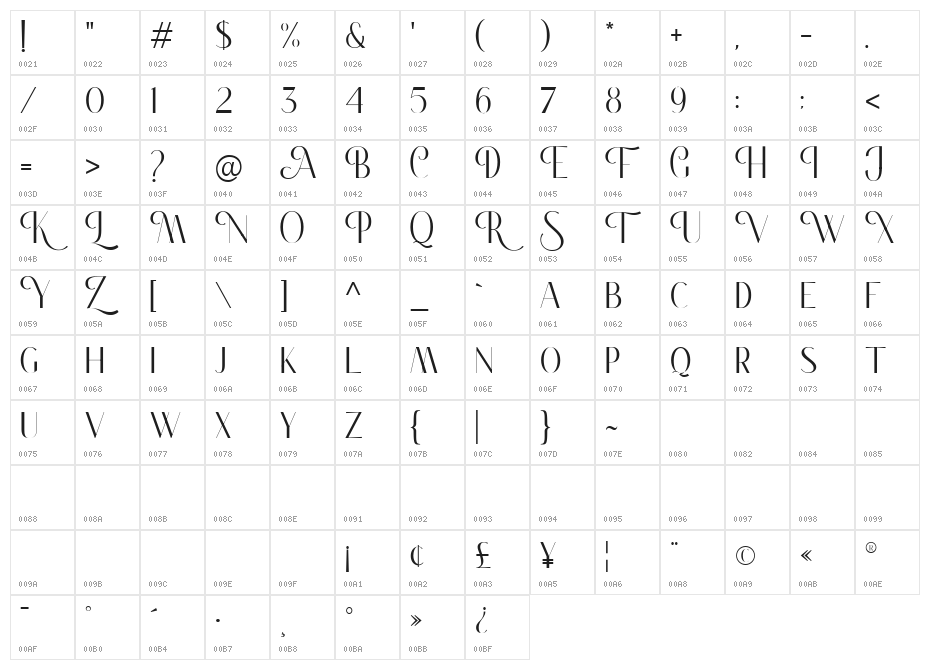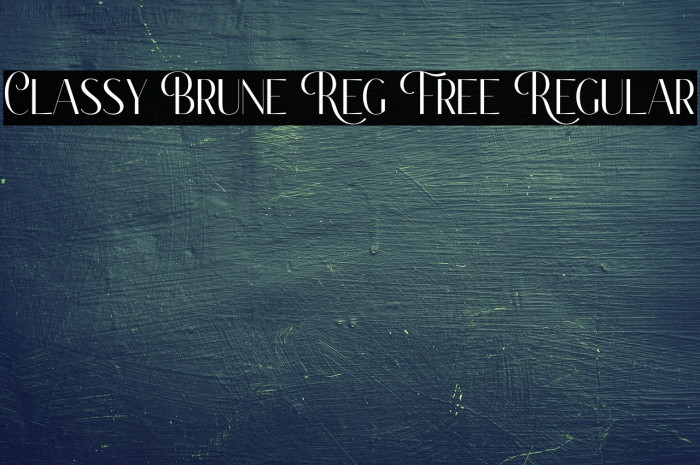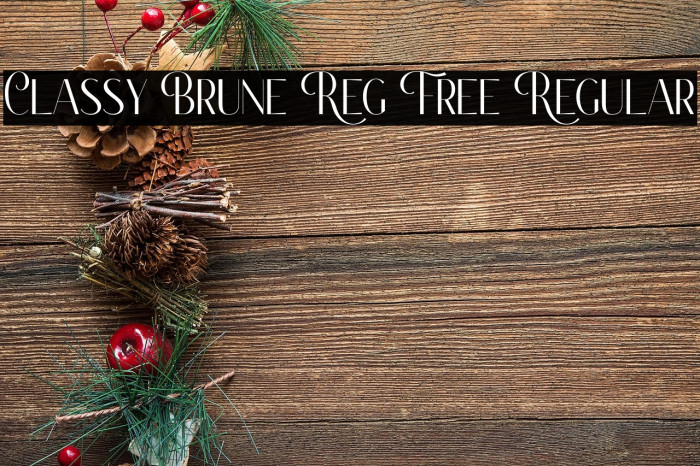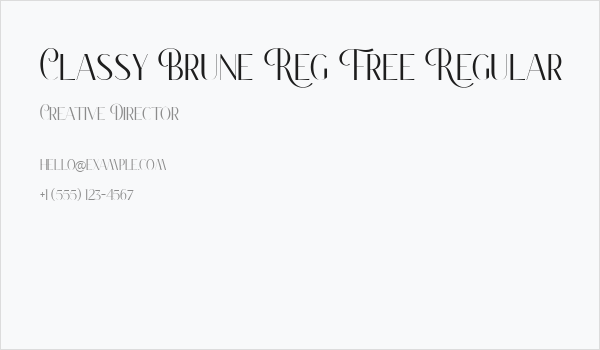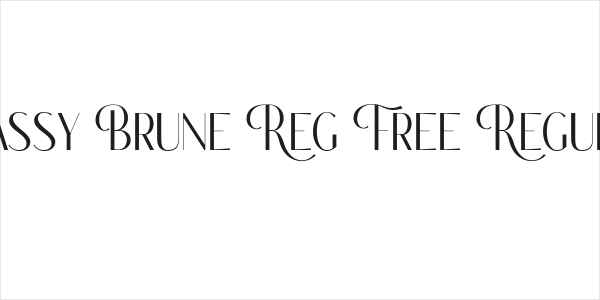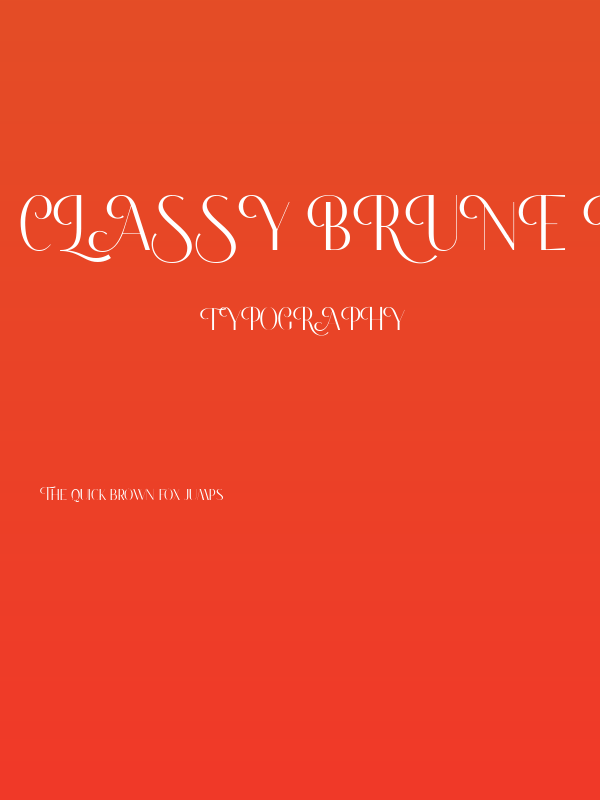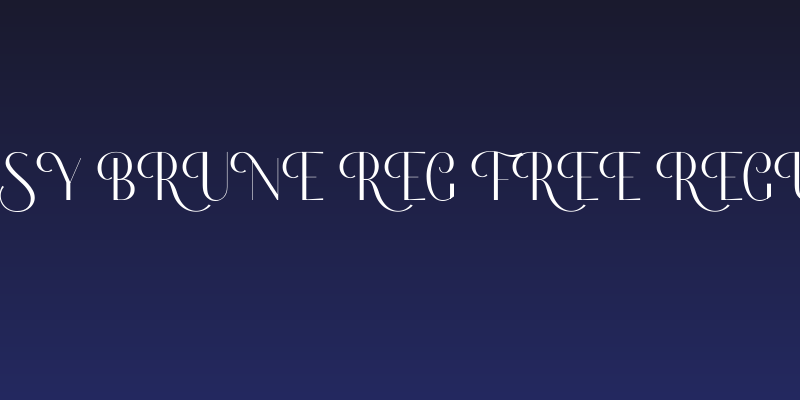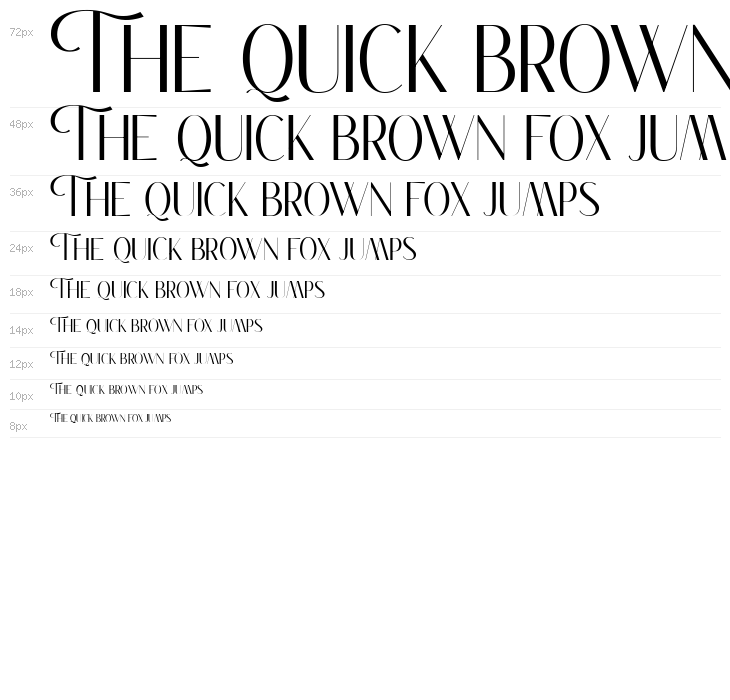
Classy Brune Reg Free Regular Font
Classy Brune Reg Free Regular Description
This font features a sophisticated and elegant design with a blend of modern and classic elements. The uppercase letters are characterized by their tall, slender forms with subtle curves and sharp serifs, giving them a refined and stylish appearance. The lowercase letters maintain a consistent style, complementing the uppercase with their graceful lines and balanced proportions. The numerals are clear and distinct, designed to match the overall aesthetic with a touch of flair. Special characters are thoughtfully crafted, ensuring they integrate seamlessly with the rest of the typeface. The font's overall style is versatile, making it suitable for a variety of design projects that require a touch of elegance and sophistication.